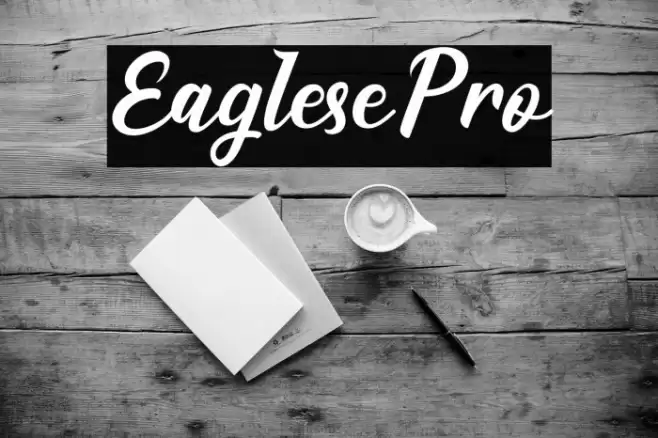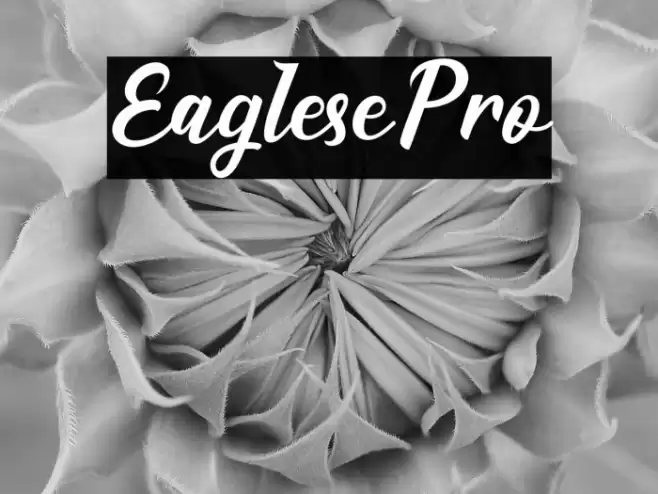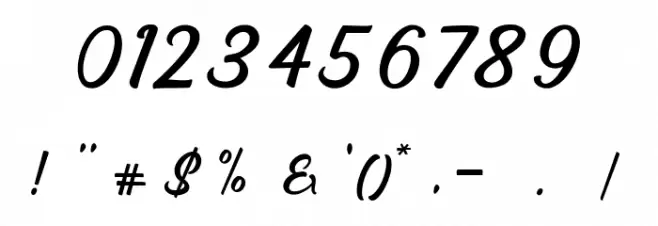
EaglesePro Font
EaglesePro Description
This font features a dynamic and elegant script style with a flowing, cursive design. The uppercase letters are bold and sweeping, with a slight slant that adds a sense of movement and grace. The lowercase letters maintain a consistent flow, complementing the uppercase with their rounded and connected forms. Numbers are clear and legible, matching the overall style with a slight slant. Special characters are designed to blend seamlessly with the alphabet, ensuring a cohesive look. The font's strokes vary in thickness, providing a medium contrast that enhances readability while maintaining its decorative appeal.
A dynamic and elegant script font with flowing, cursive design and medium contrast from Regular fonts.
- Font: EaglesePro
- Proposed Projects: Ideal for wedding invitations, elegant branding, greeting cards, and decorative headings.
- Overall Style: Elegant, Decorative
- Use Case: Headlines, Invitations, Branding